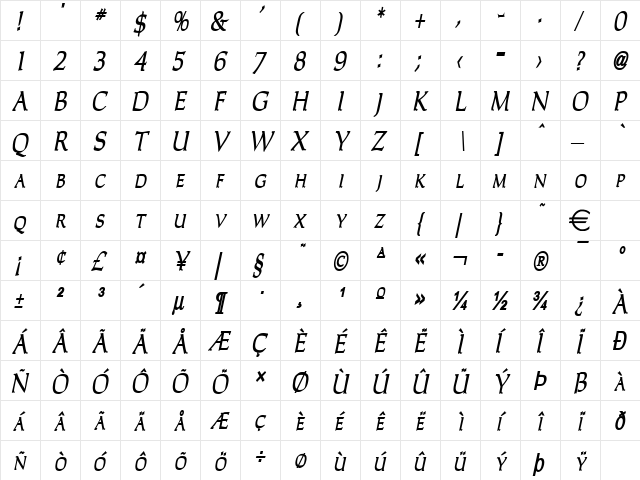
CarlaThin BoldItalic Font Preview
CarlaThin BoldItalic
Design Context for CarlaThin Typeface
CarlaThin is a composed and adaptable typeface that performs quietly and consistently across a wide range of design contexts. The slanted form adds forward momentum and visual energy. Its bold stroke weight gives it real presence on the page.